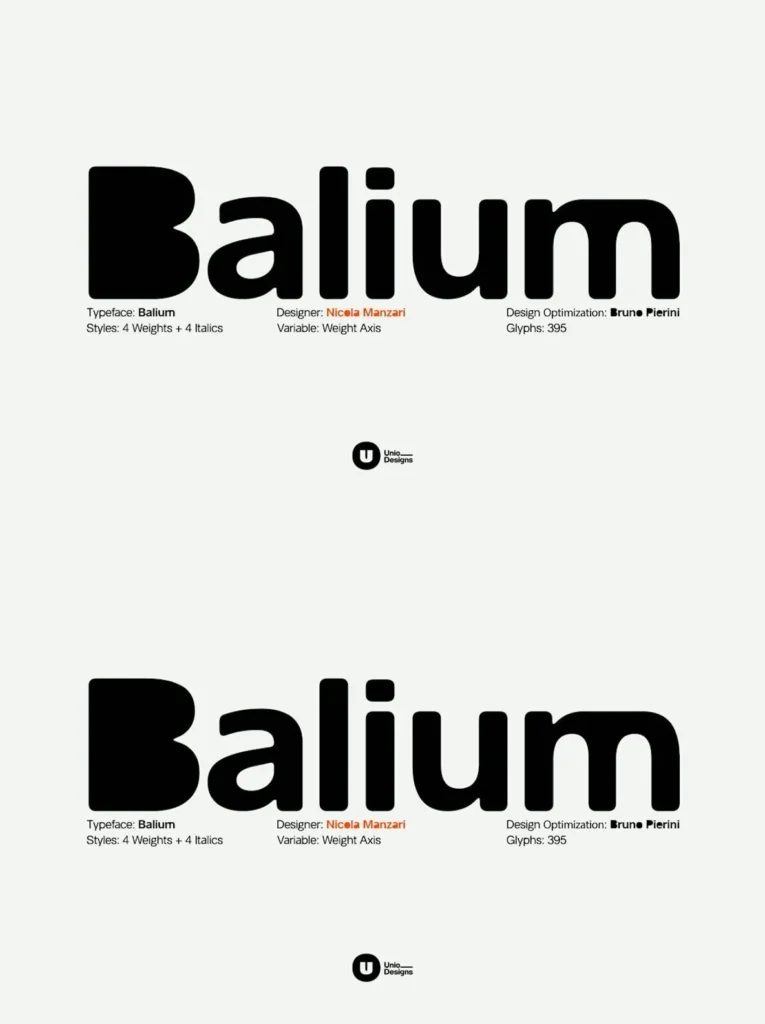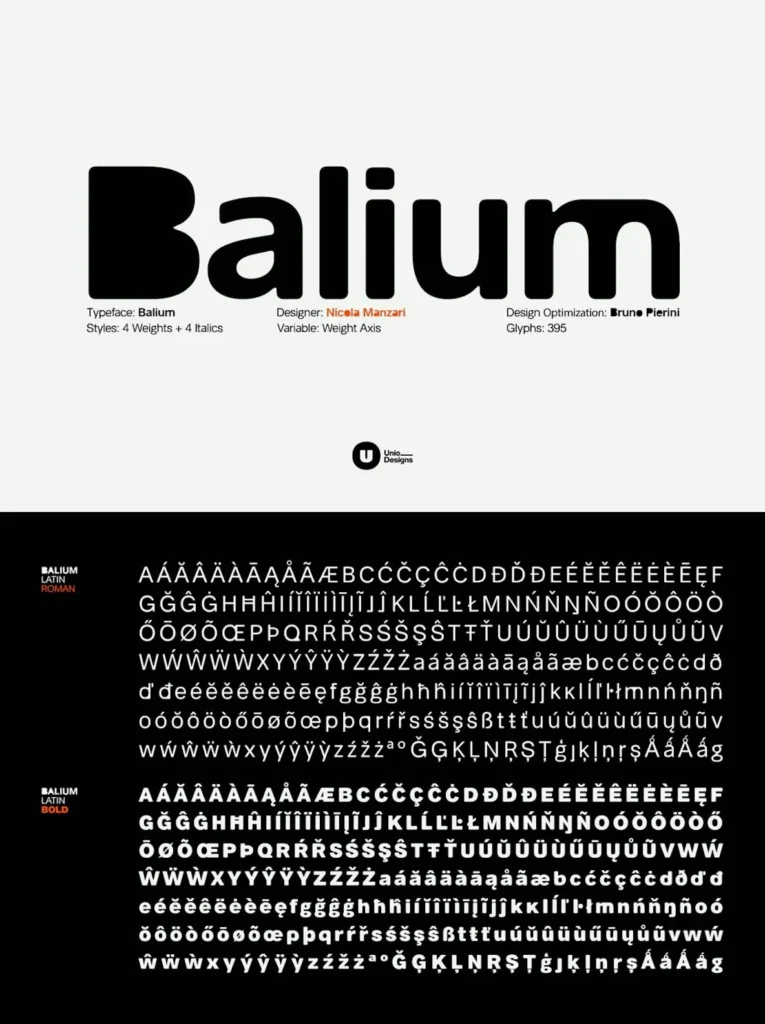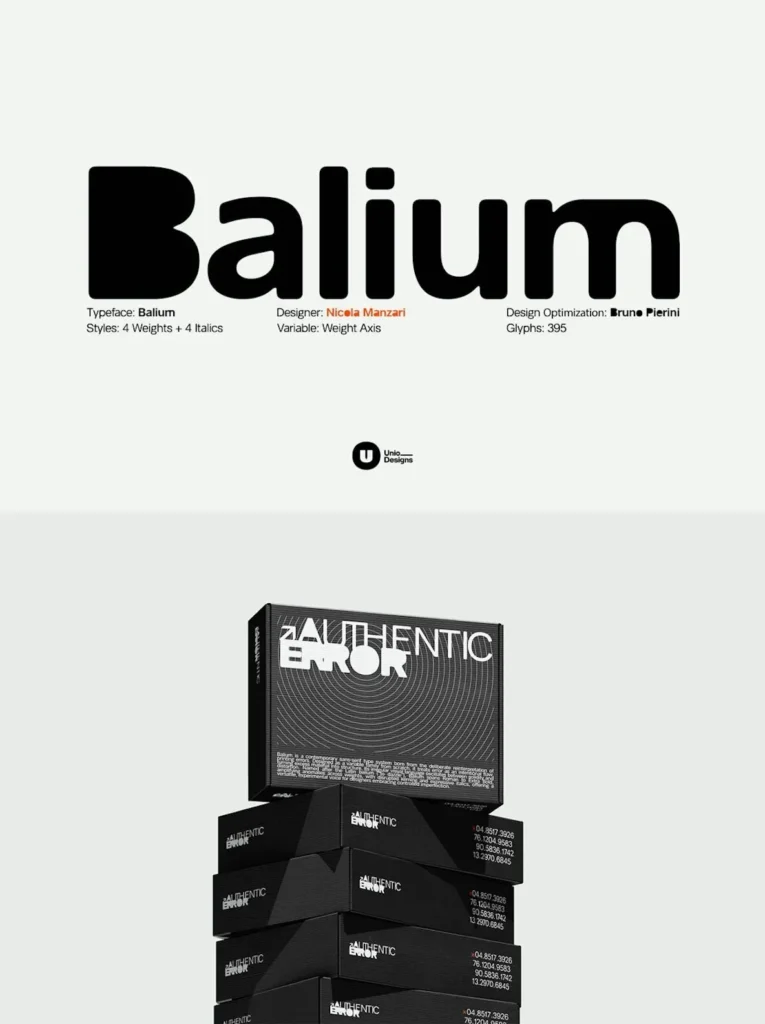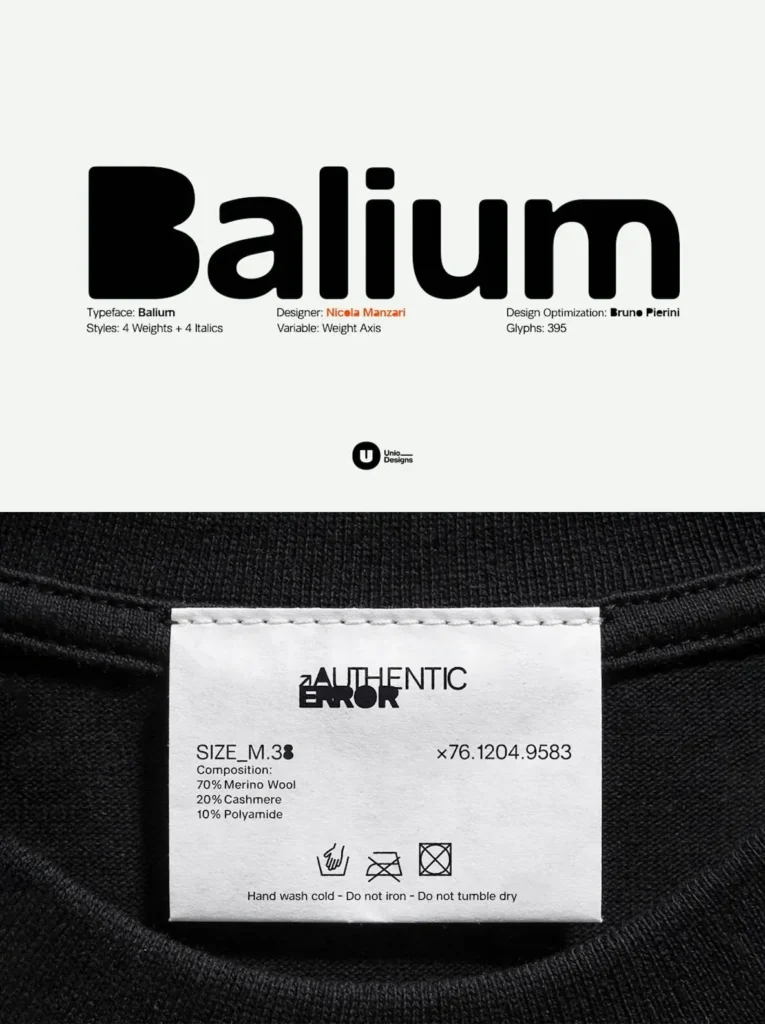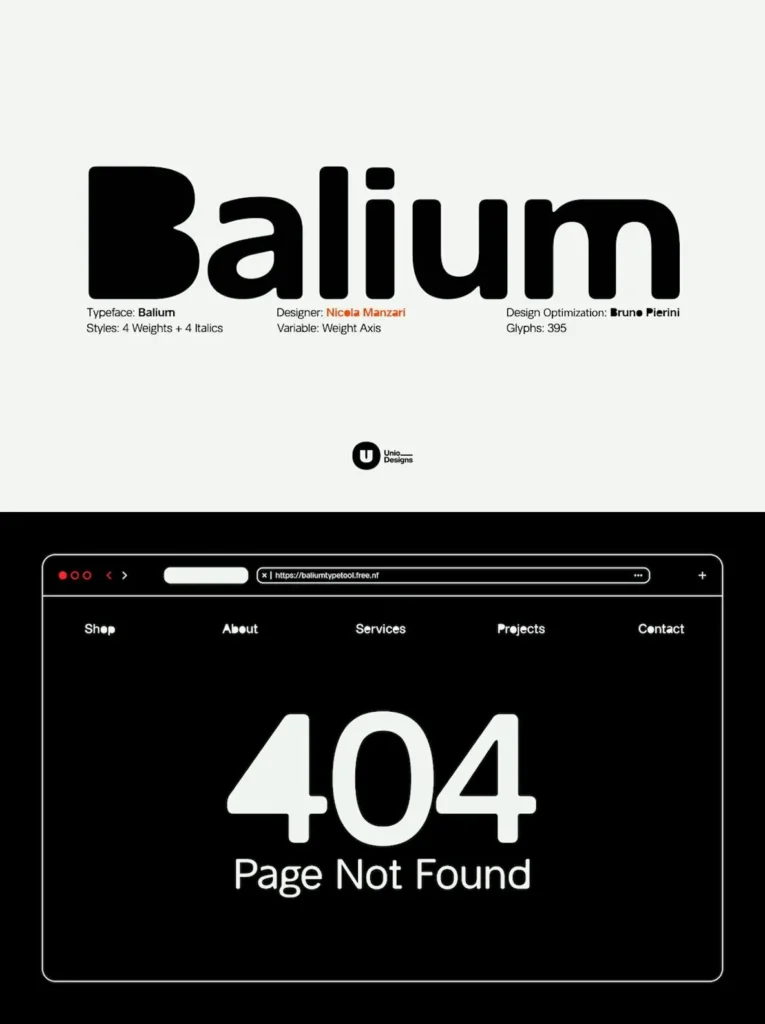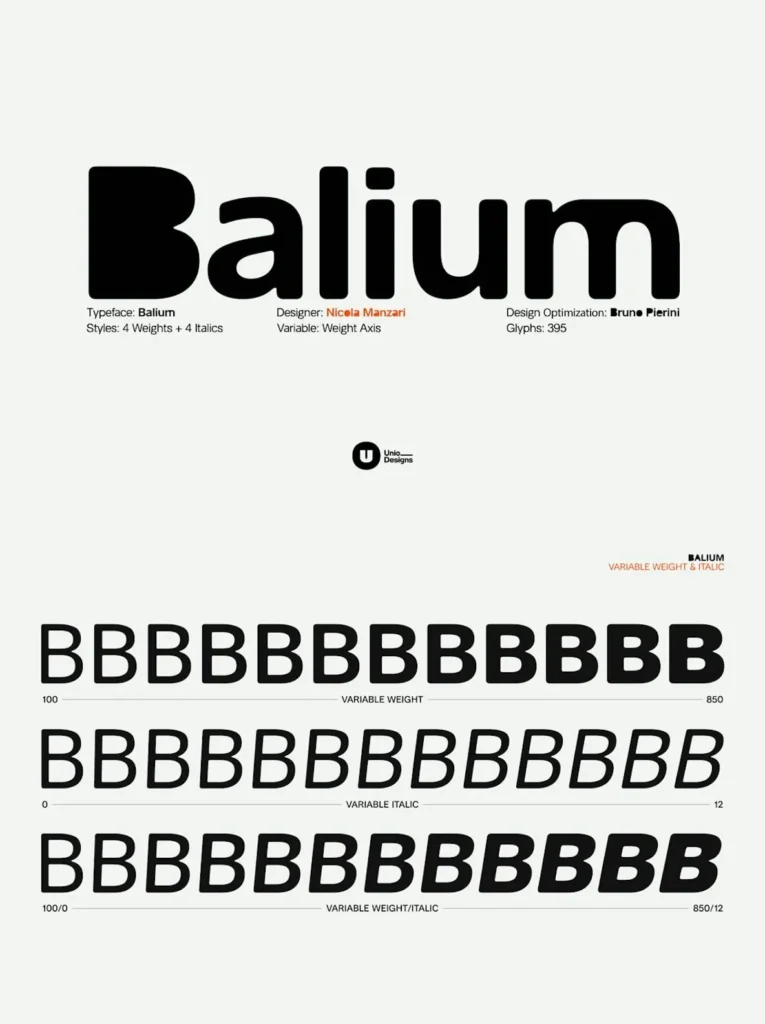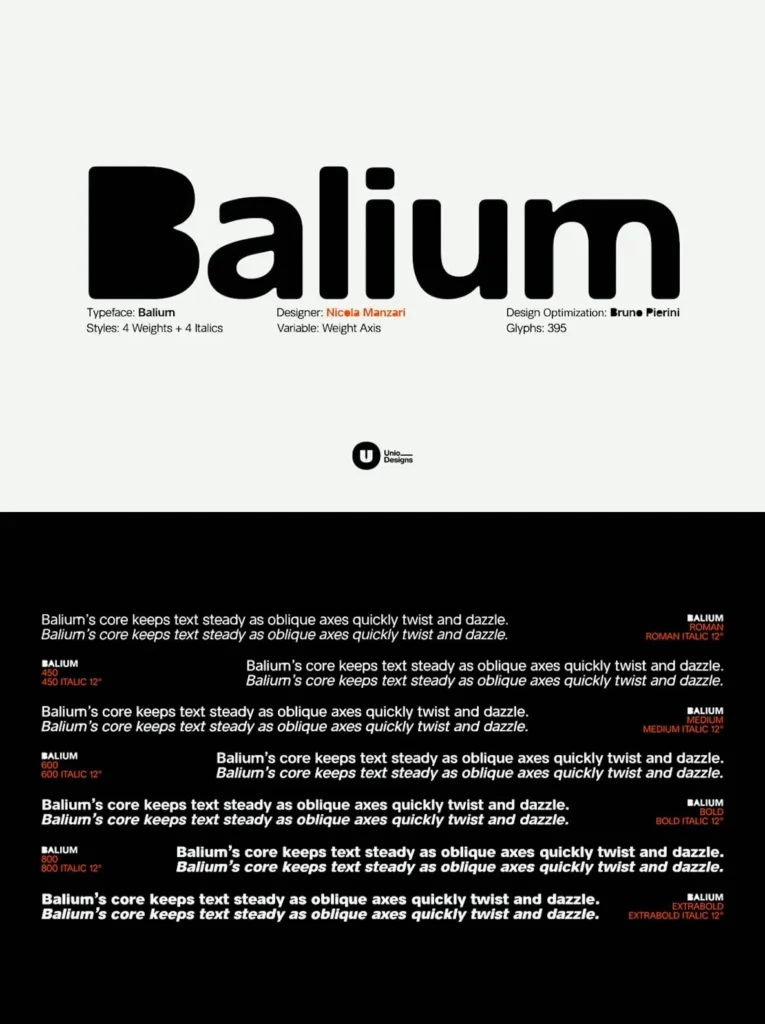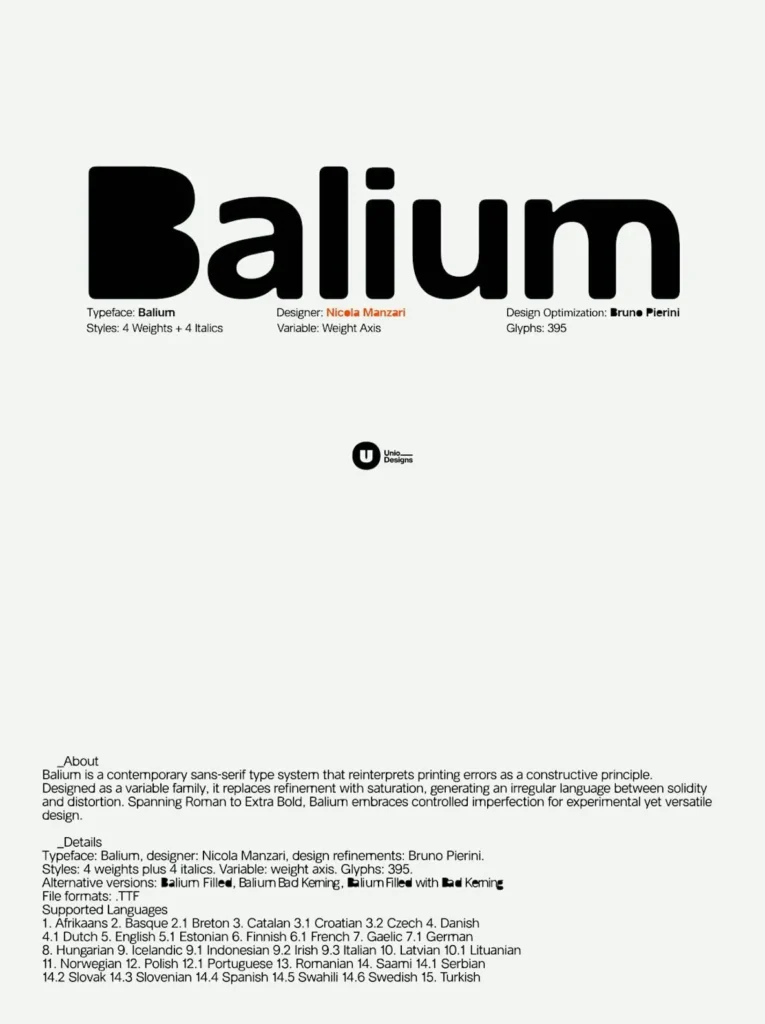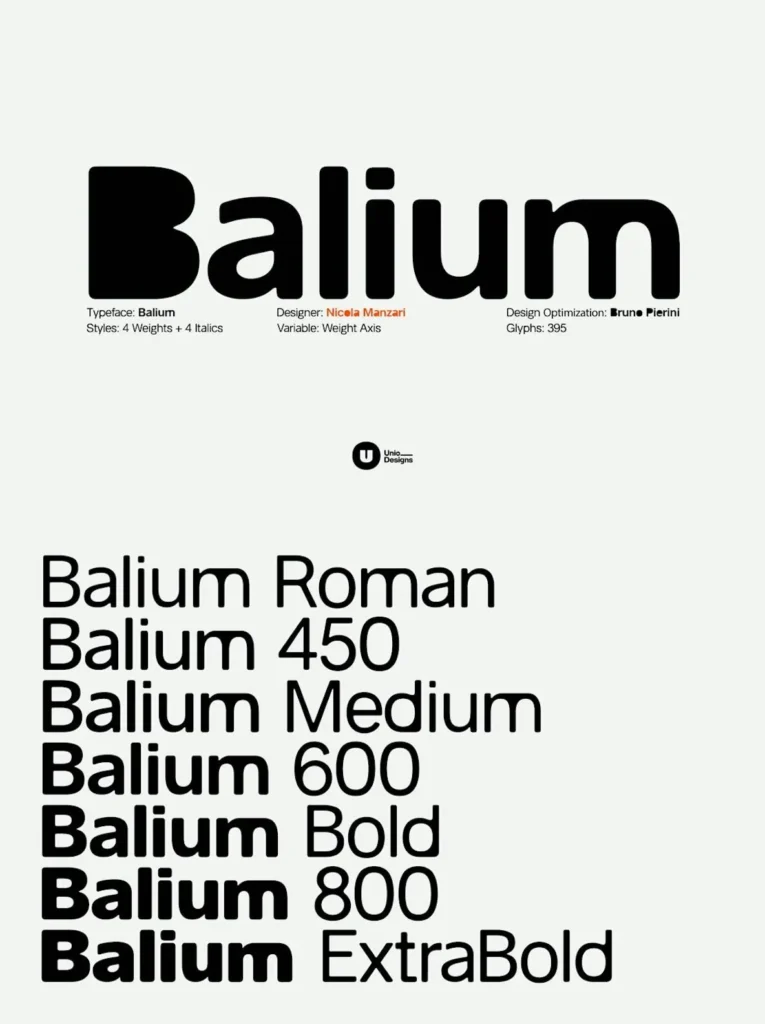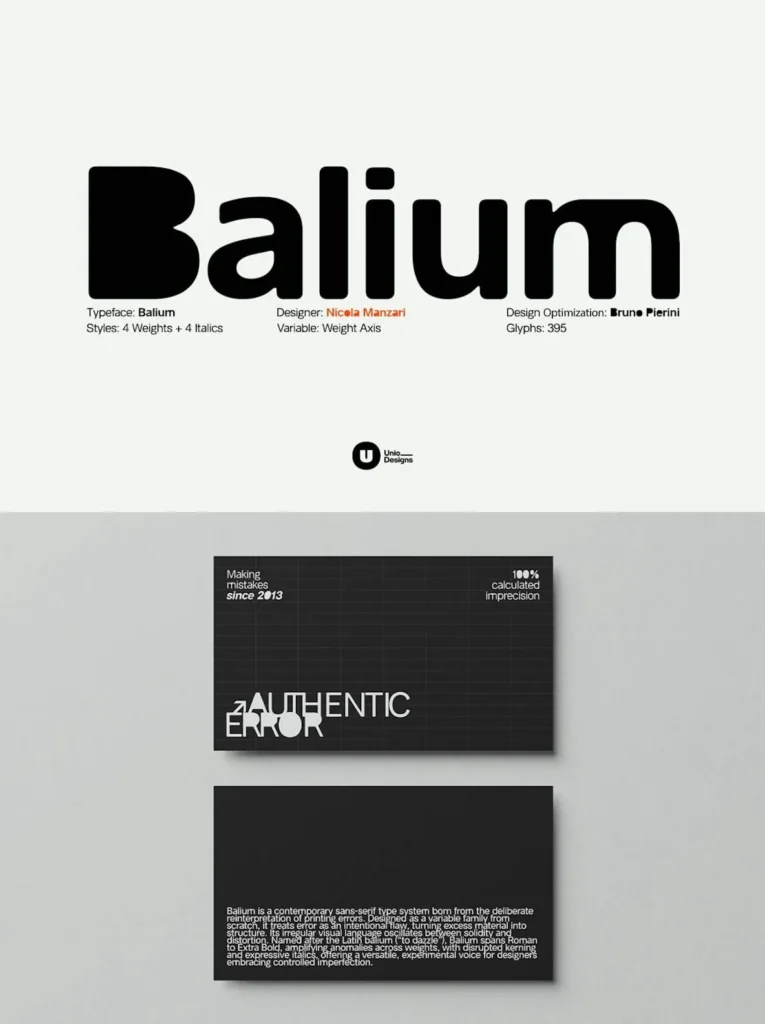
Balium — Error, Made Graphic
Balium is a contemporary sans-serif type system built around intentional imperfection. It revisits printing errors and the traditional methods once used to hide them, then turns those artifacts into form. Designed entirely from scratch as a variable family, Balium treats error as a deliberate, latent feature: areas that would typically require stroke thinning are instead saturated with black.
This choice creates a distinct visual language that shifts between solidity and distortion. The result is a textured irregularity that stands apart in a digital culture shaped by algorithmic precision and AI. The name Balium traces back to the Latin term linked to abbagliare, meaning to dazzle or overwhelm with brightness. That sense of glare guides its construction—rather than refining by subtraction, the typeface builds through accumulation, where excess material forms the structure itself.
Features
A continuous weight range from Roman to Extra Bold via proportional interpolation between two masters
Progressive amplification of anomalies, exploring imperfection through normal and filled styles
Deliberately disrupted kerning paired with matching italic styles for consistent, expressive rhythm
Versatile usage from headlines to interfaces without losing its experimental character
Comprehensive global support with 447 glyphs covering a broad spectrum of languages
Balium gives designers and brands a distinctive voice grounded in controlled imperfection. Set at the intersection of contemporary typography, digital technology, and visual experimentation, it invites you to use type as a space where error becomes expressive—and structure can emerge from excess.